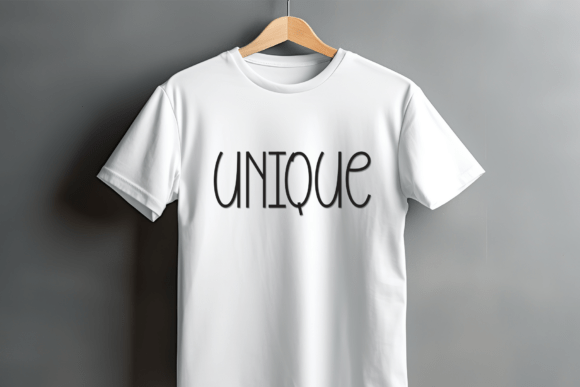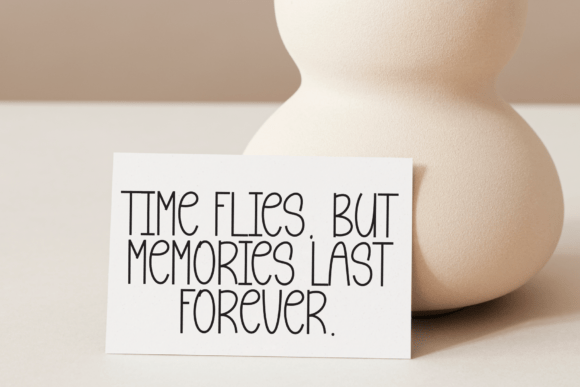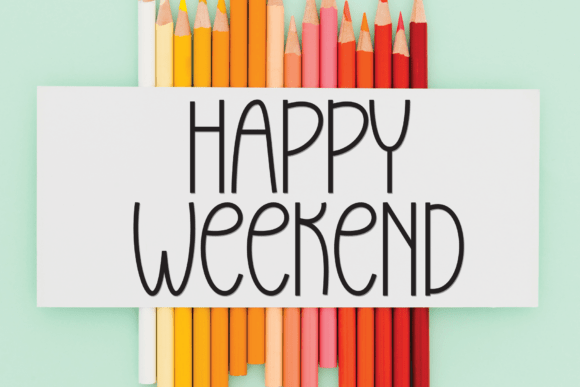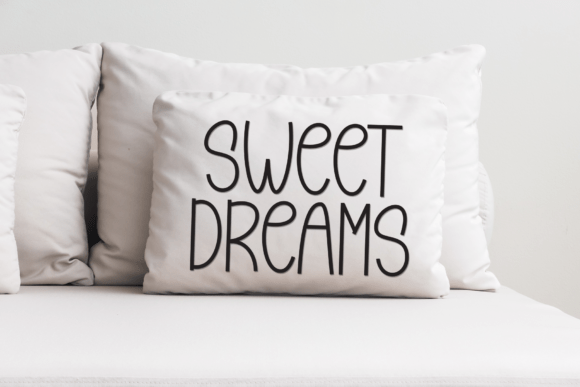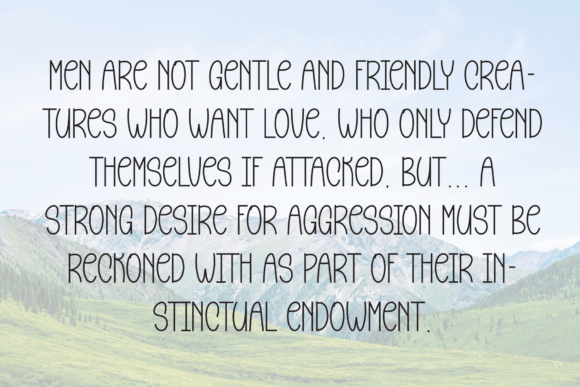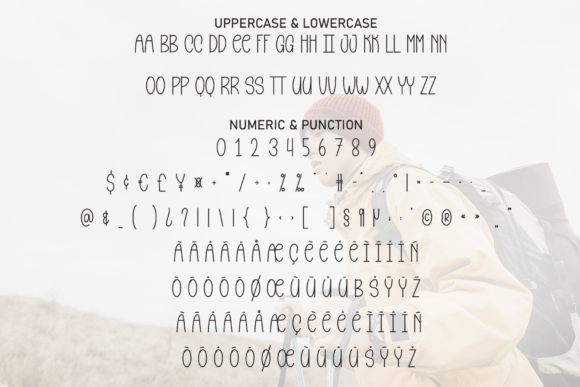
Introduction to Simple Adventure Font
Simple Adventure is a neat and casual display font that blends clarity with a relaxed, approachable vibe.
Its clean lines and friendly letterforms make it perfect for headlines, posters, packaging, and branding that aims to feel modern yet laid-back With a balanced structure and playful energy, it brings personality to any project without overwhelming the message.
Key Features of Simple Adventure Font